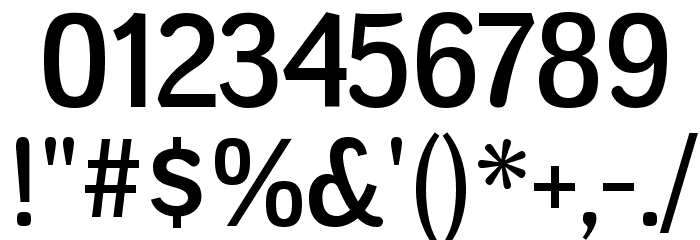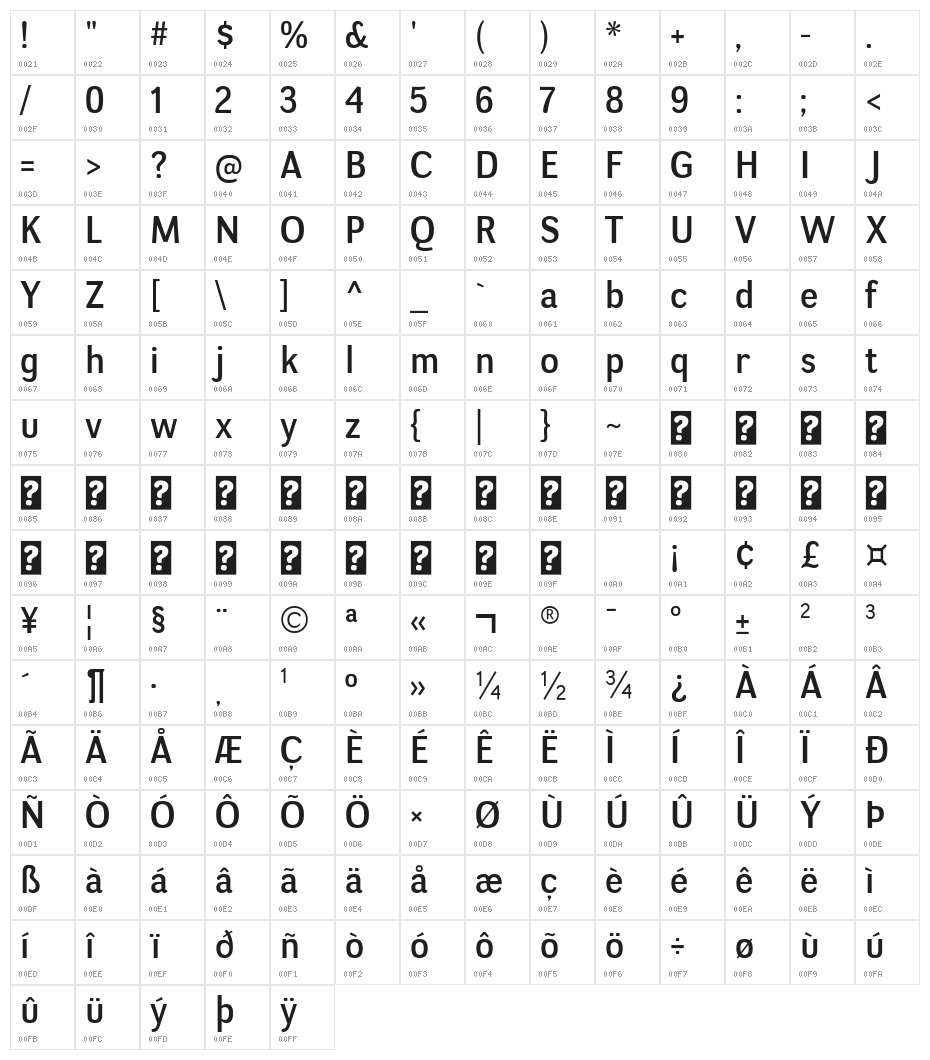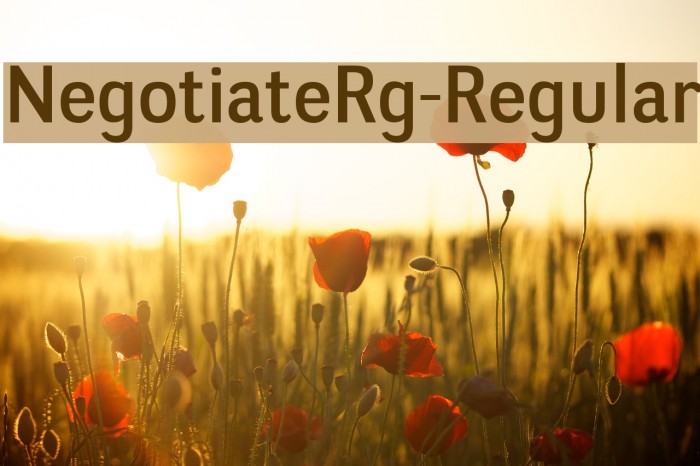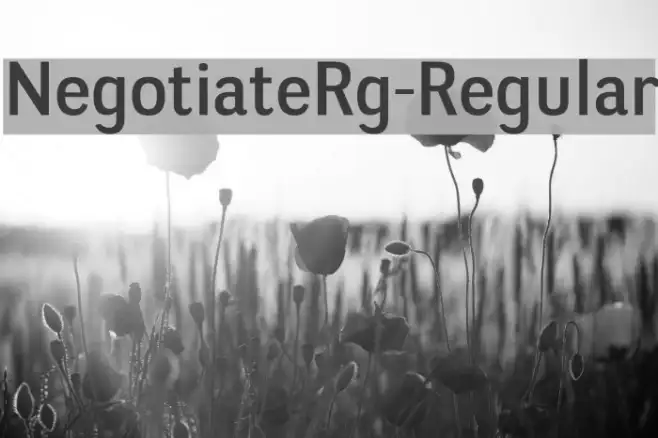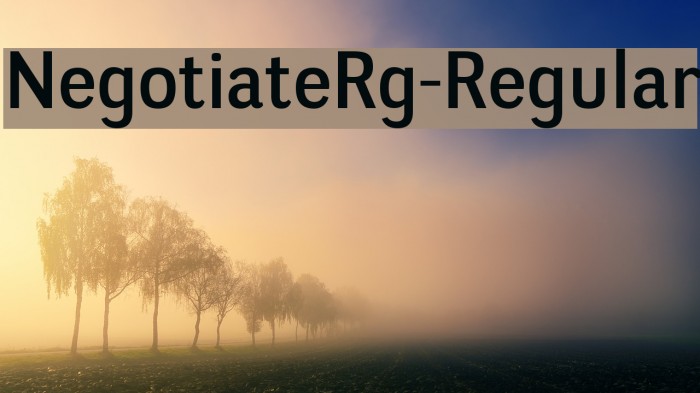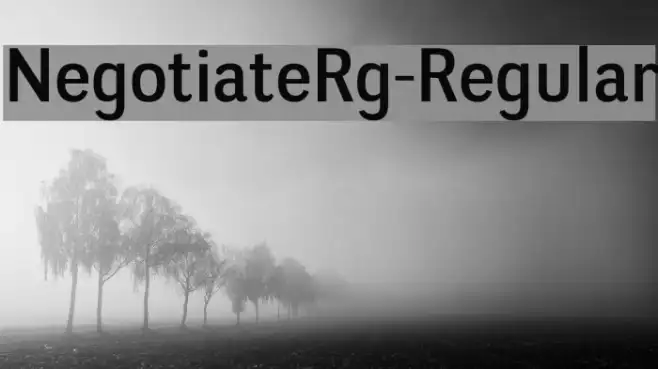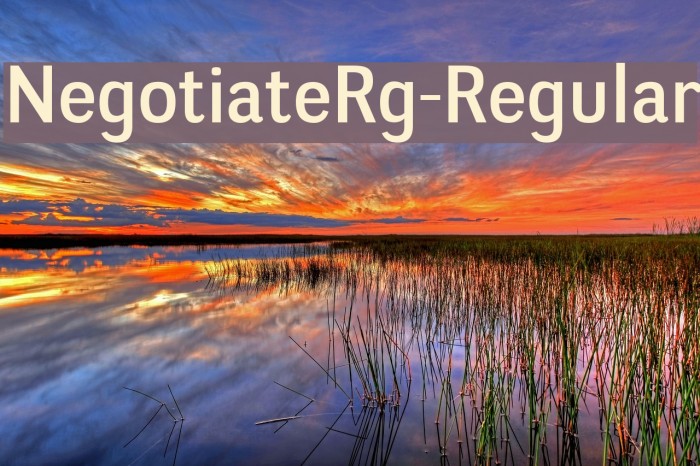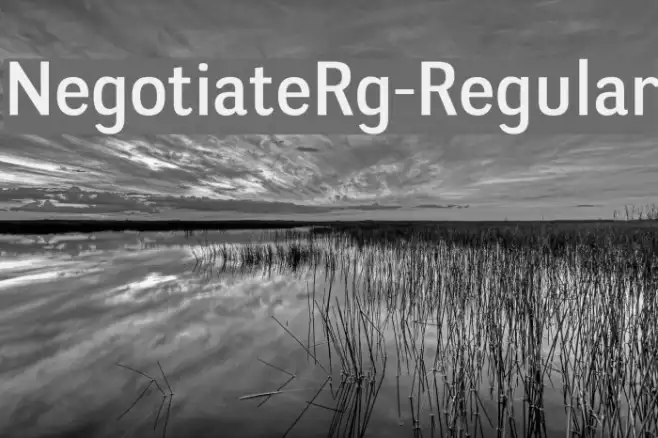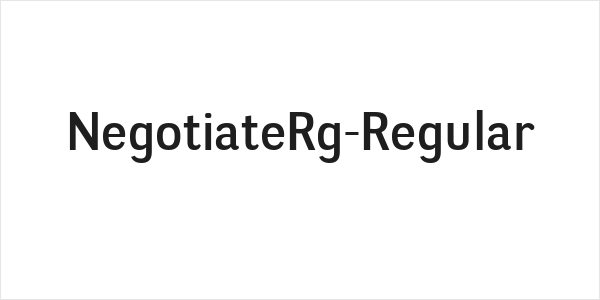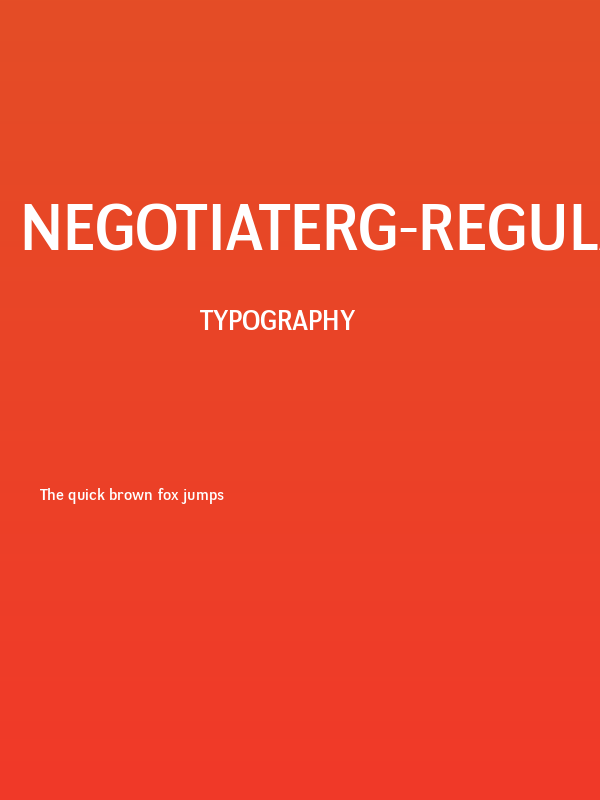
NegotiateRg-Regular Font
NegotiateRg-Regular Description
This font features a clean and modern sans-serif design, characterized by its uniform stroke width and geometric letterforms. The uppercase letters are bold and assertive, while the lowercase letters maintain a consistent and harmonious appearance. The numerals are clear and easily distinguishable, making them suitable for various applications. Special characters are well-defined, enhancing the font's versatility. Overall, the font exudes a contemporary and professional aesthetic, suitable for a wide range of design projects.
| Proposed Projects | Ideal for corporate branding, digital interfaces, advertising, and editorial design. |